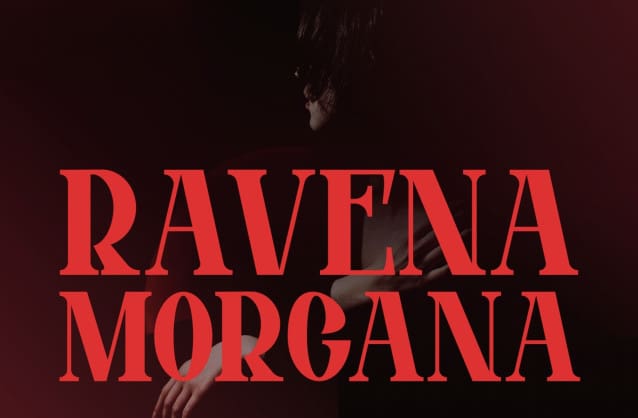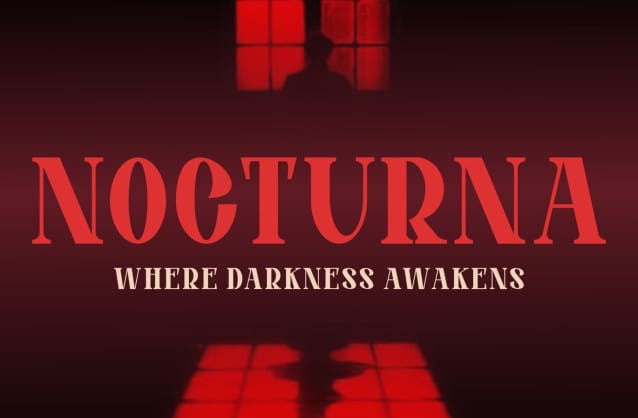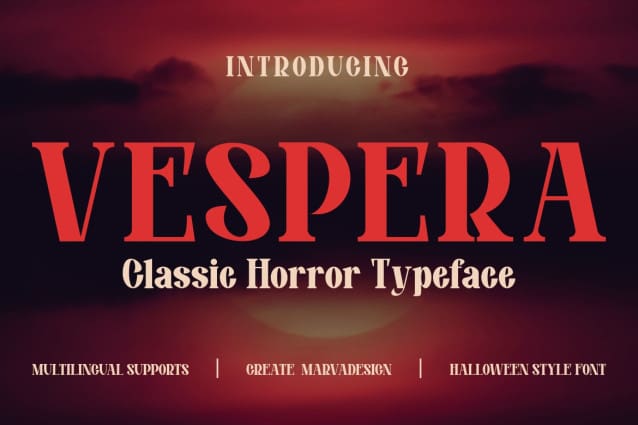
Vaspera Font
Vaspera Font – Modern Font is a bold and authentic display font. The font is suitable for all branding projects such as logo, template design, product and many more. It looks outstanding in a wide range of contexts